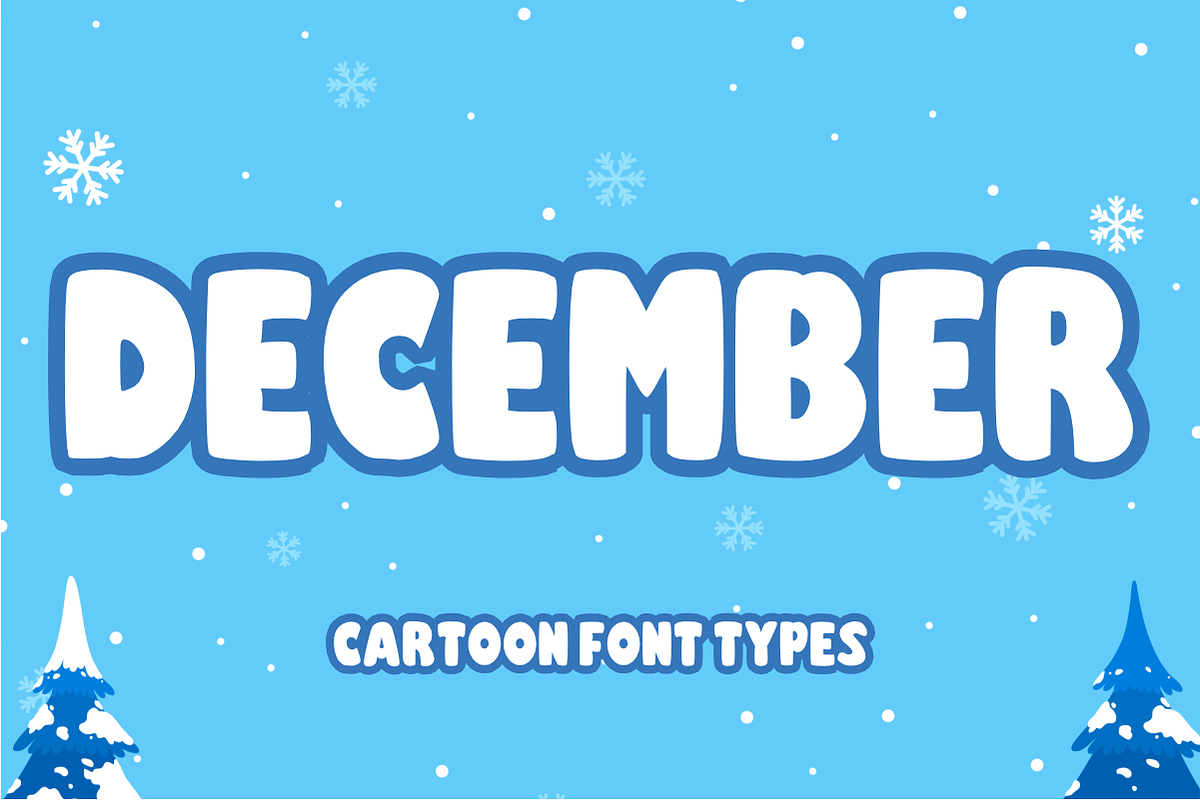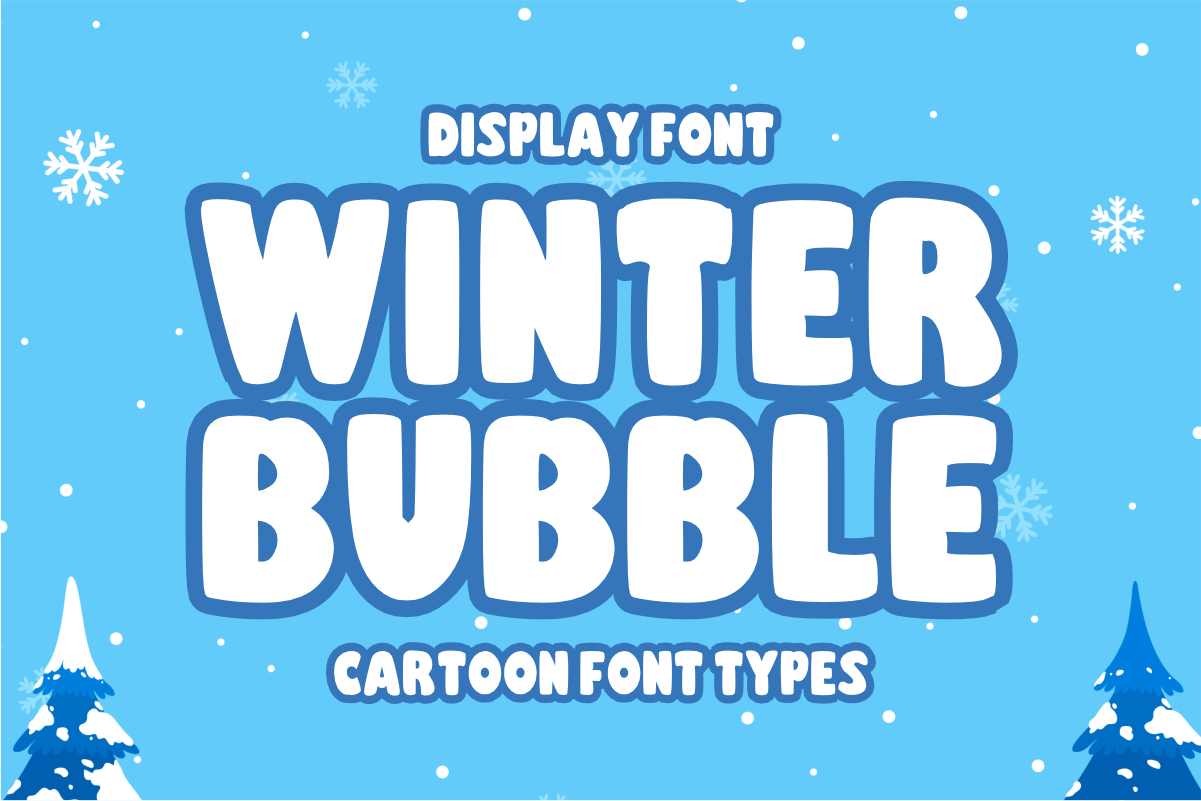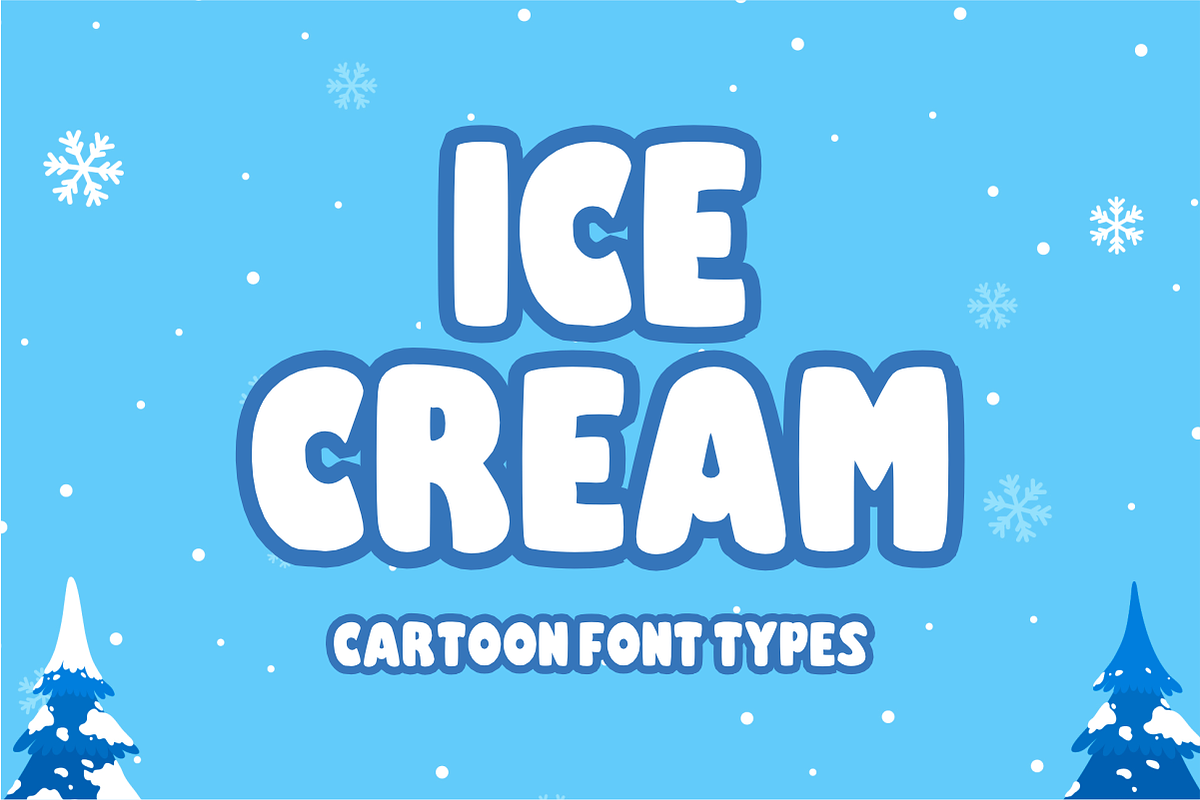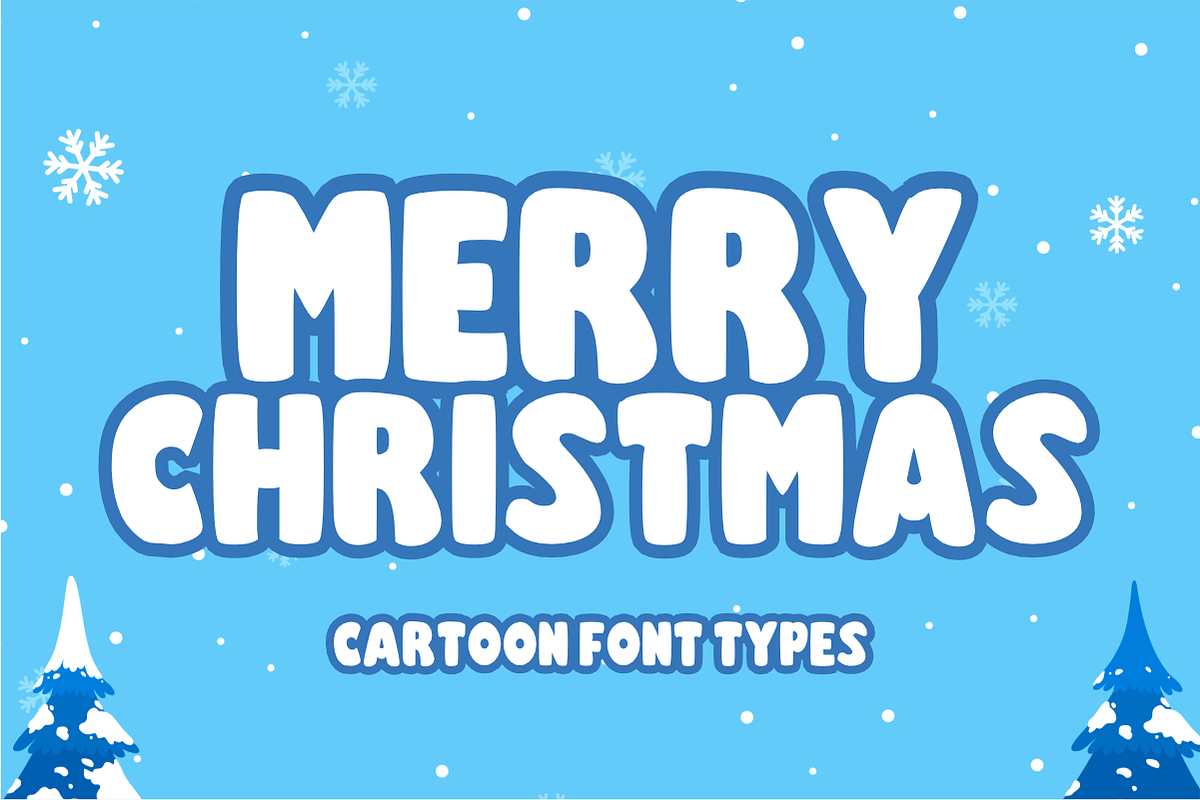
Winter Bubble - Cartoon Display Font
WINTER BUBBLE - Playful Cartoon Display Font
Bring a cozy burst of joy and snowy fun to your layouts with Winter Bubble! this ultra-chunky display typeface features thick, rounded, cloud-like letterforms that give your headlines an instant, friendly "Cartoon Font Type" aesthetic.
Perfect for holiday designs, children's products, and seasonal crafting, Winter Bubble masterfully pairs a playful bubble look with excellent legibility. It is highly expressive, versatile, and fully optimized for smooth, seamless performance across premium digital cutting tools and professional print workflows.
All-Caps Character Set (Chunky, happy cartoon bubble uppercase letters)
Numbers & Basic Punctuation (Essential, simple symbols included)
Winter & Christmas Branding, Holiday Cards, & Seasonal Event Posters ❄️
Children’s Books, Comic Strips, & Playful Storybook Titles 📚
Cricut, Silhouette, & DIY Holiday Craft Sublimation Projects ✂️
Kids' Product Packaging, Toy Labels, & Birthday Party Decor 🎈
Custom Die-Cut Stickers, Social Media Graphics, & Fun Apparel Prints 📱